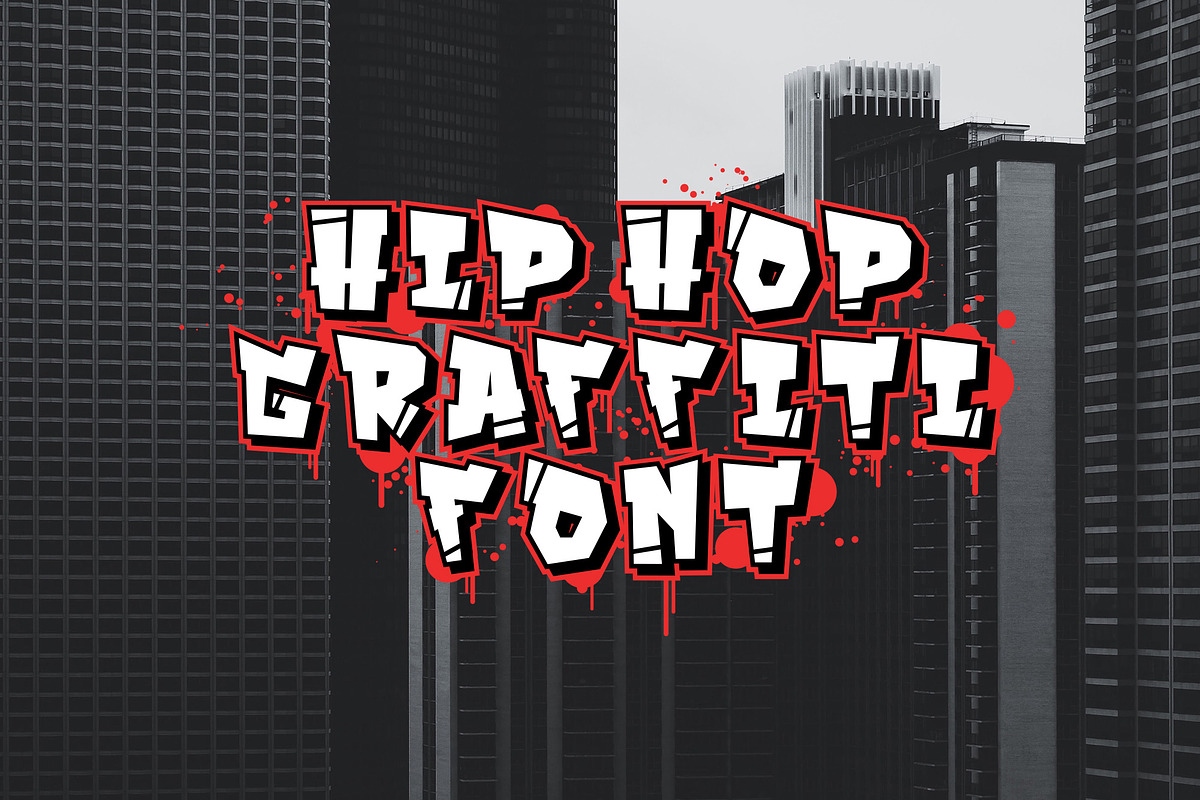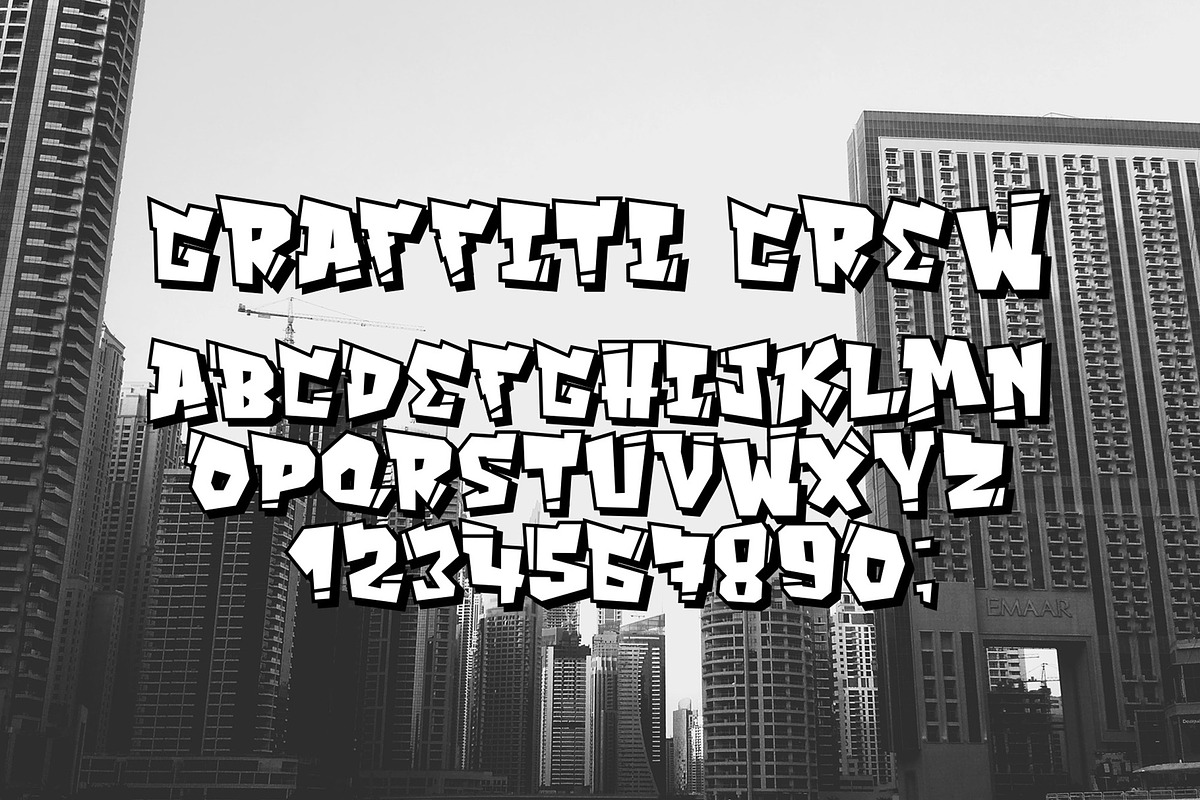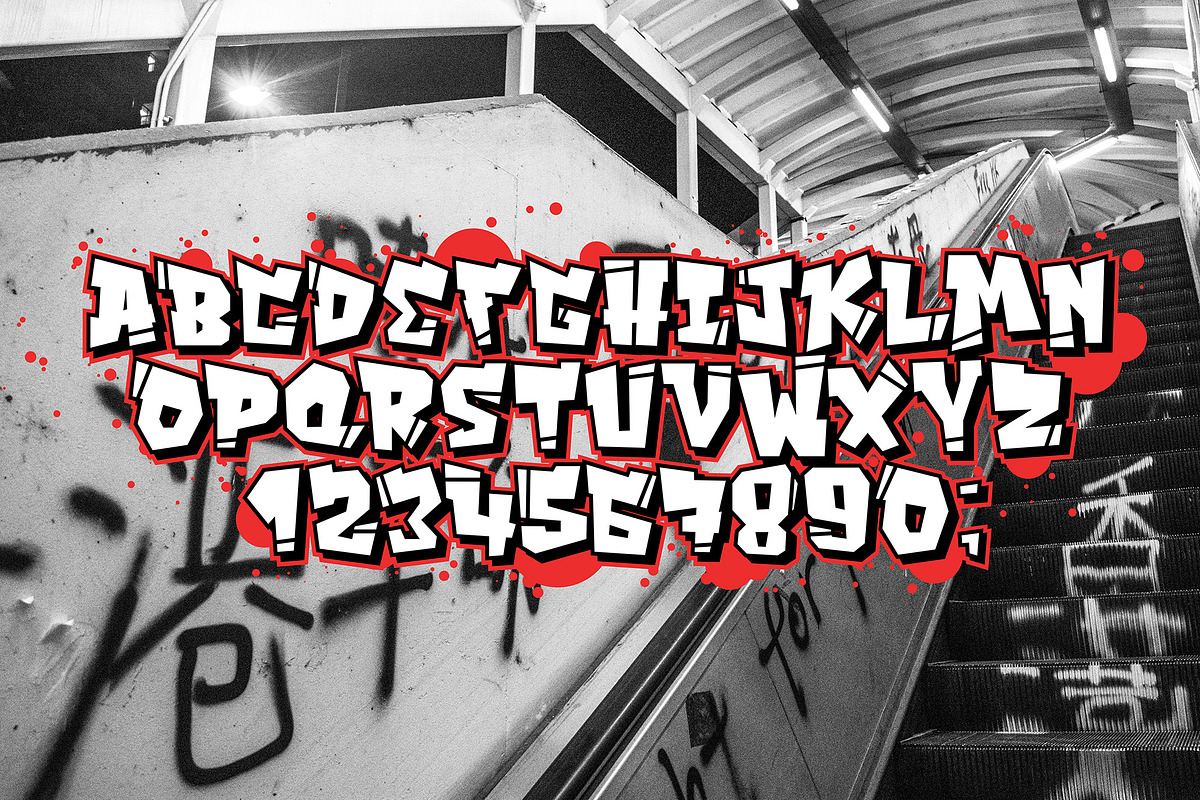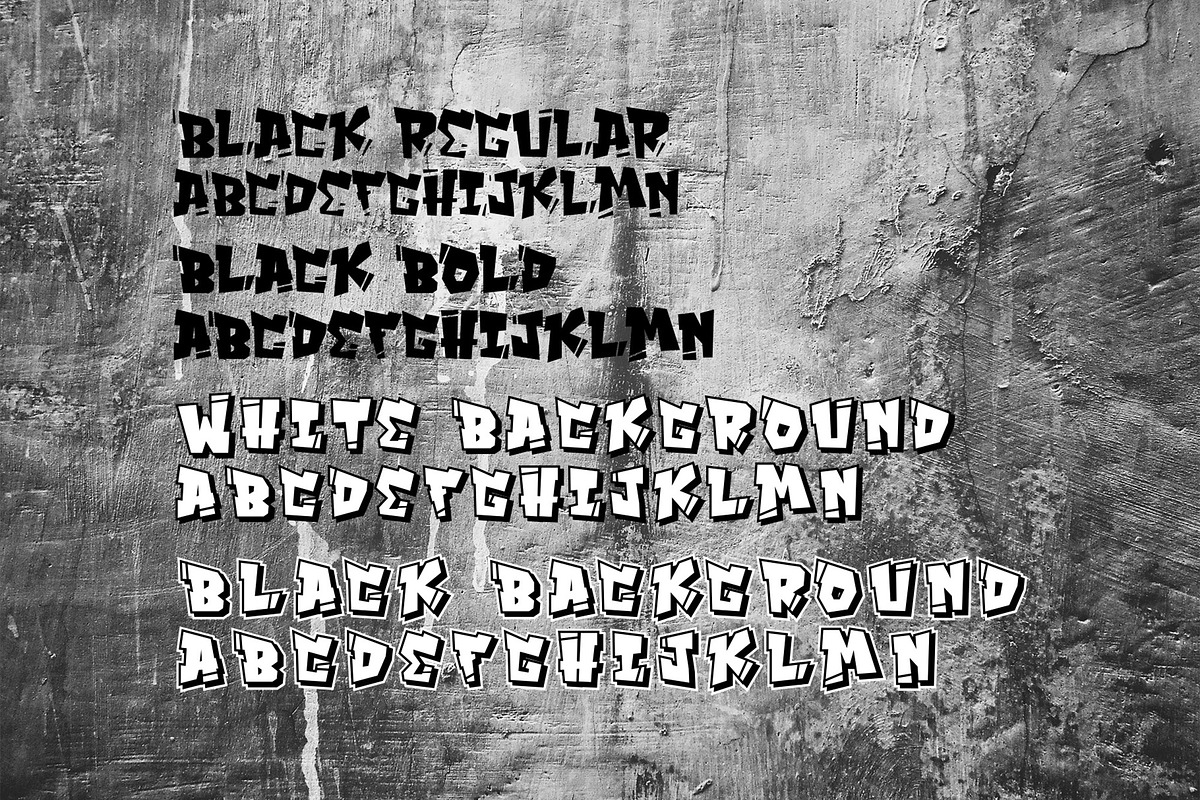
Hip hop font / graffiti font.
- Graffiti color font. Letters and numbers for your design. Three different fonts provide an opportunity to choose a more suitable design, font with a stroke, a slanted font, and a regular font in a package, all objects are made in vector format that can be used in any size without loss of quality.